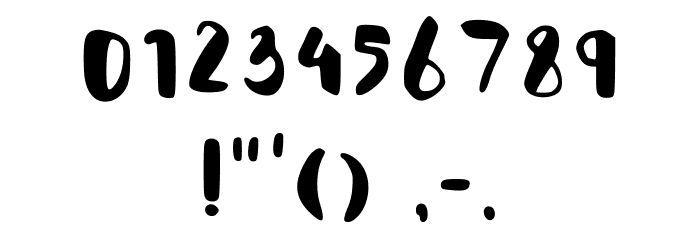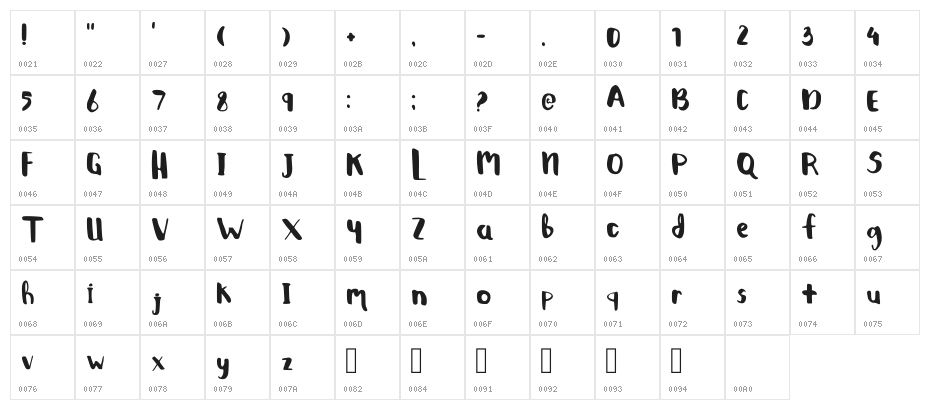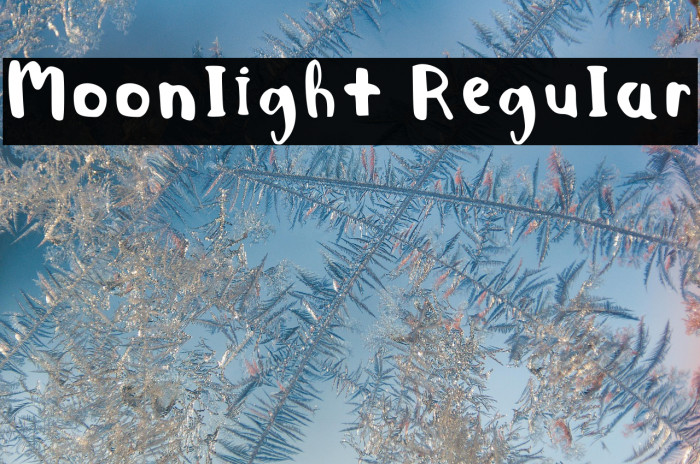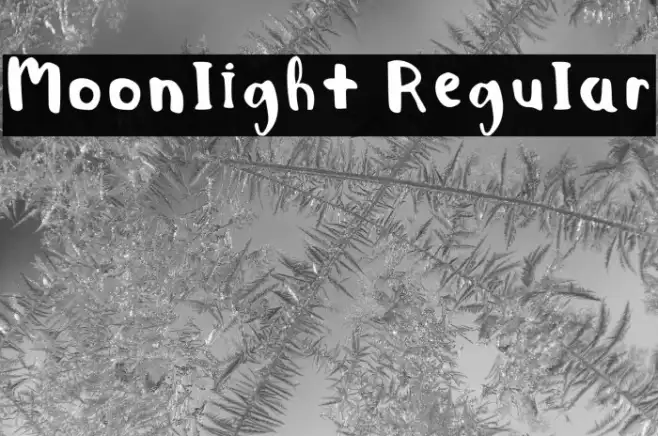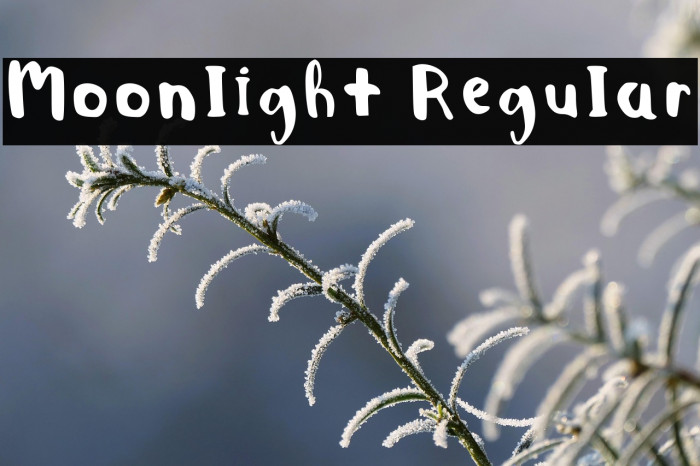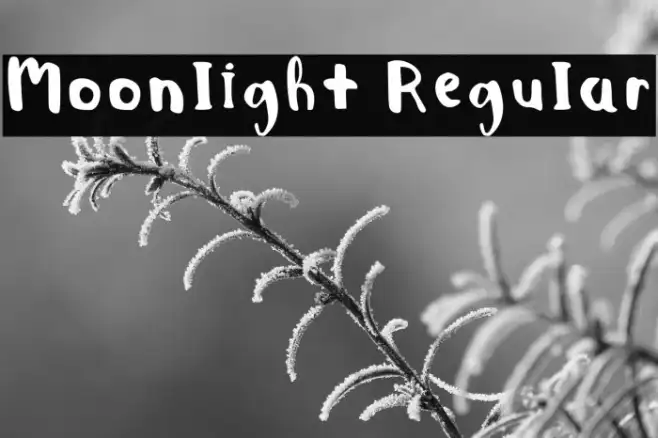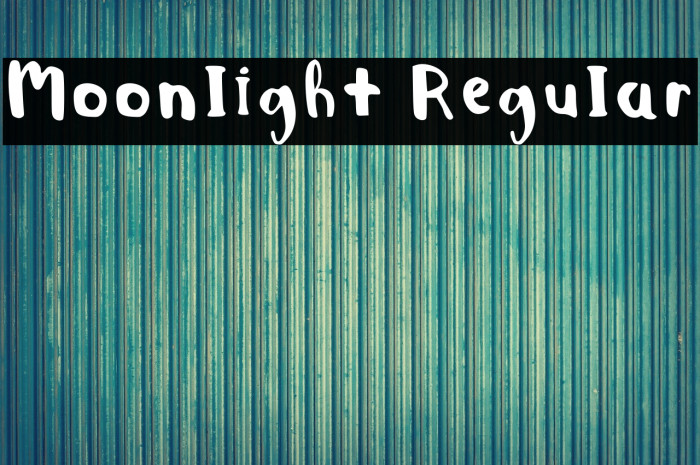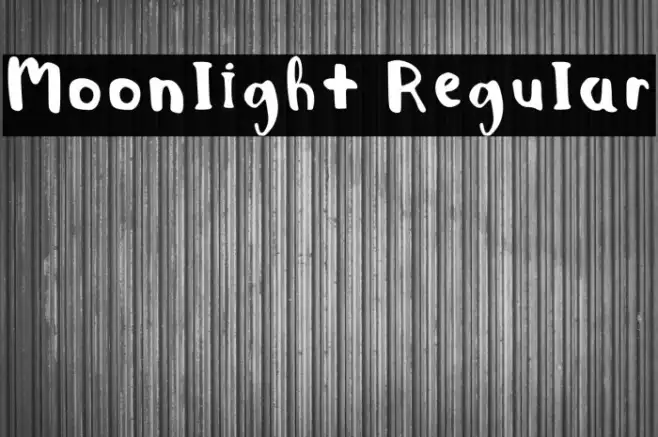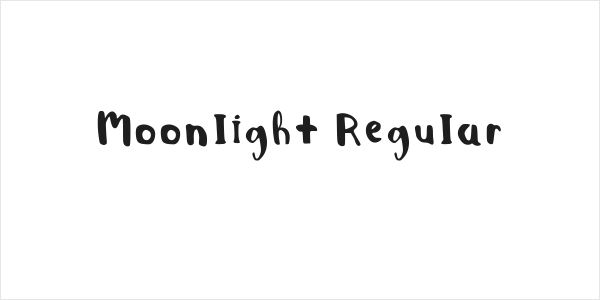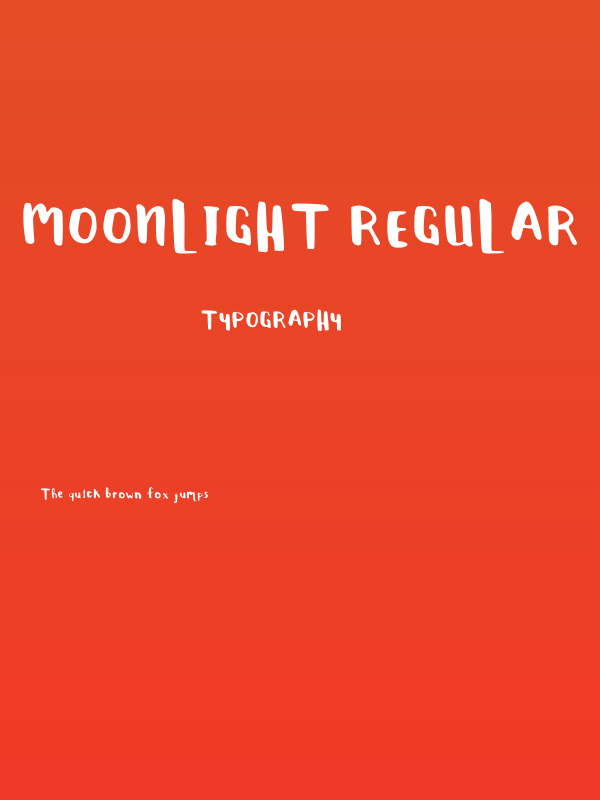
Moonlight Regular Font
Moonlight Regular Description
This font features a playful and whimsical style with a handwritten appearance. The characters are bold and have a slightly irregular shape, giving them a unique and artistic flair. The uppercase letters are tall and rounded, while the lowercase letters maintain a consistent flow with subtle variations in stroke width. The numbers are clear and easy to read, matching the overall playful aesthetic. Special characters are included, adding versatility to the font. The overall look is casual and friendly, making it suitable for creative and informal projects.
| Overall Style | Playful, Artistic |
| Use Case | Headlines, Logos, Creative Projects |
| Proposed Projects | Ideal for children's books, greeting cards, playful branding, and creative posters. |